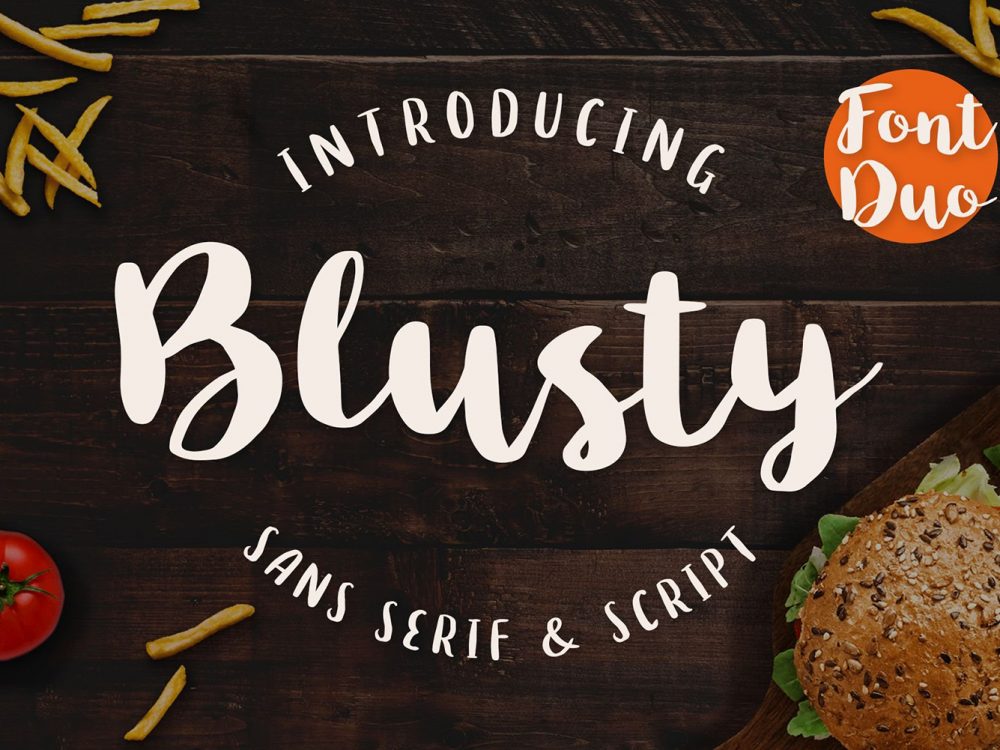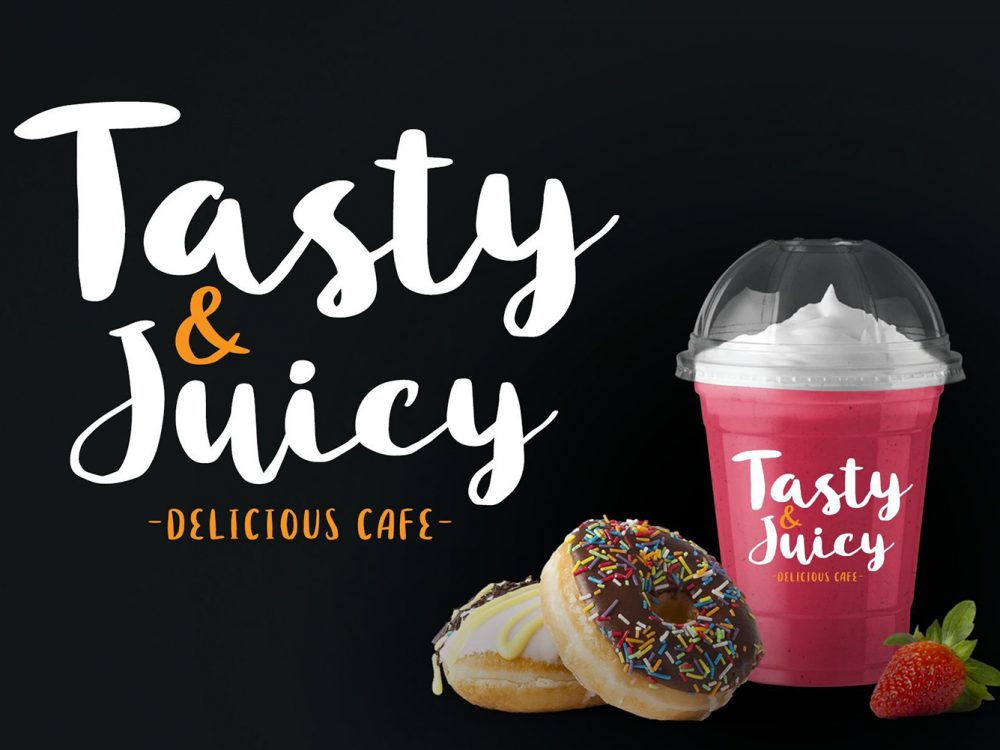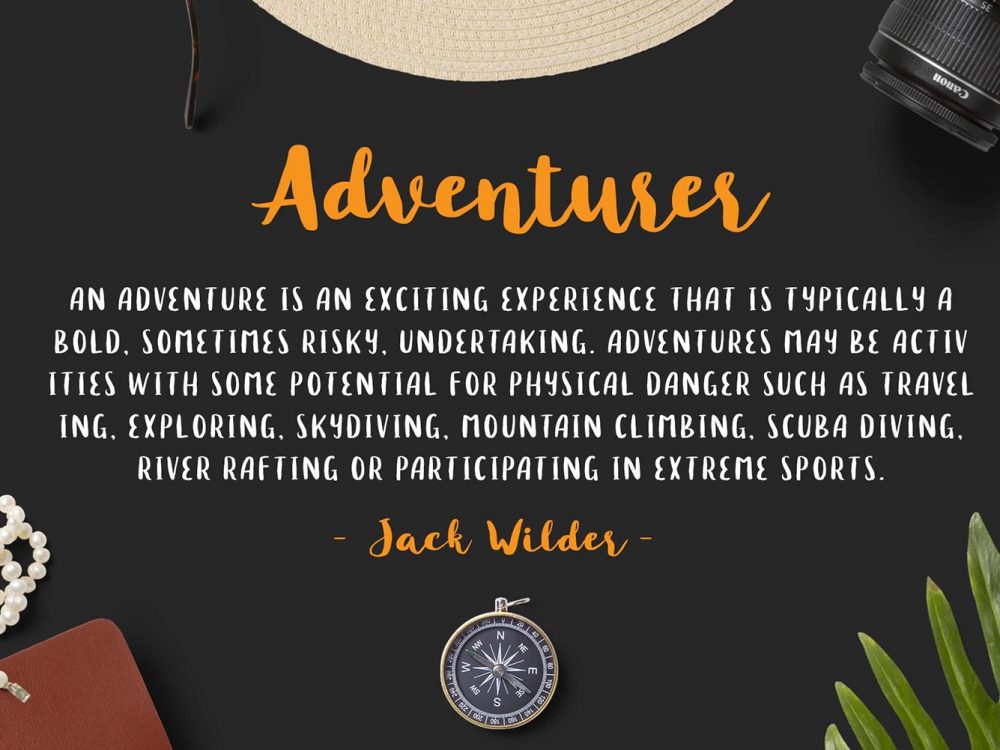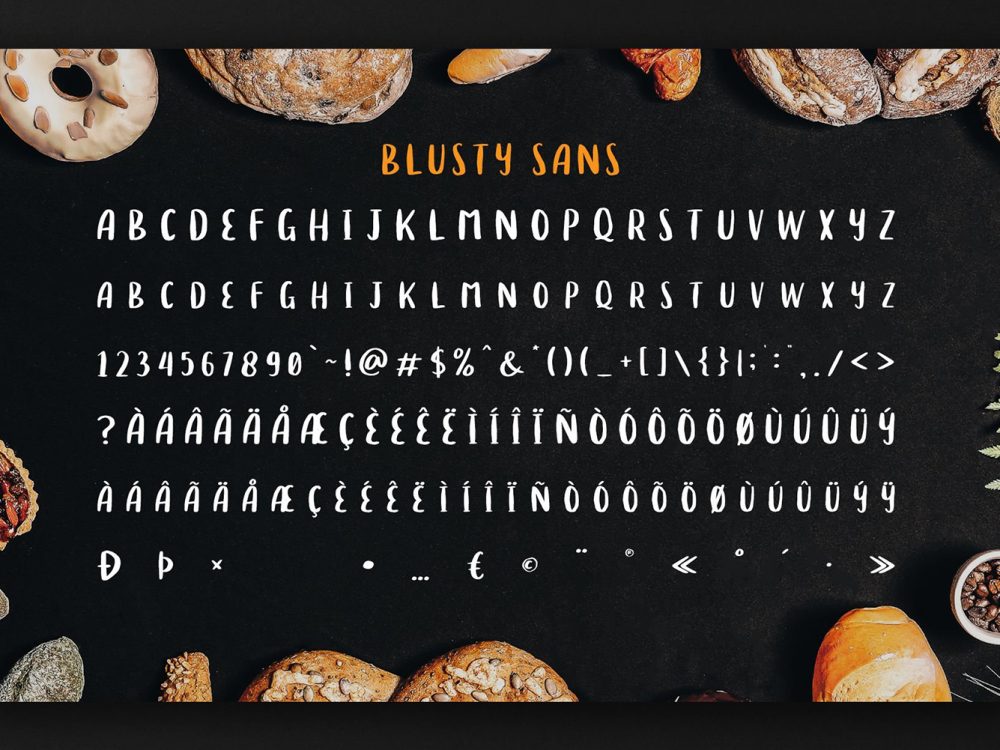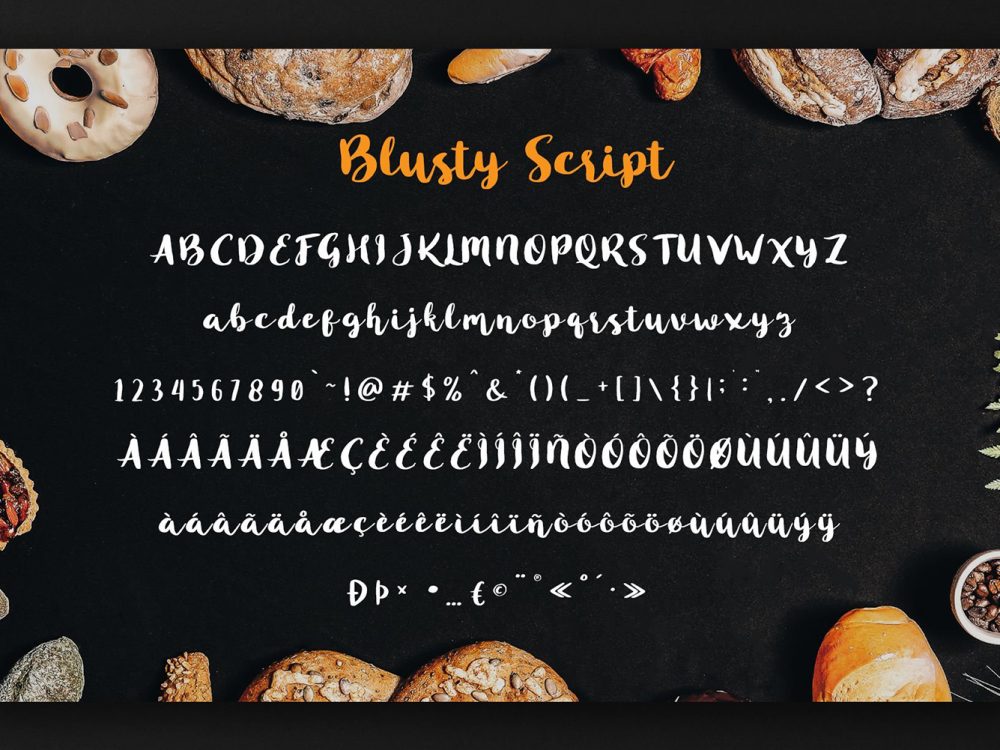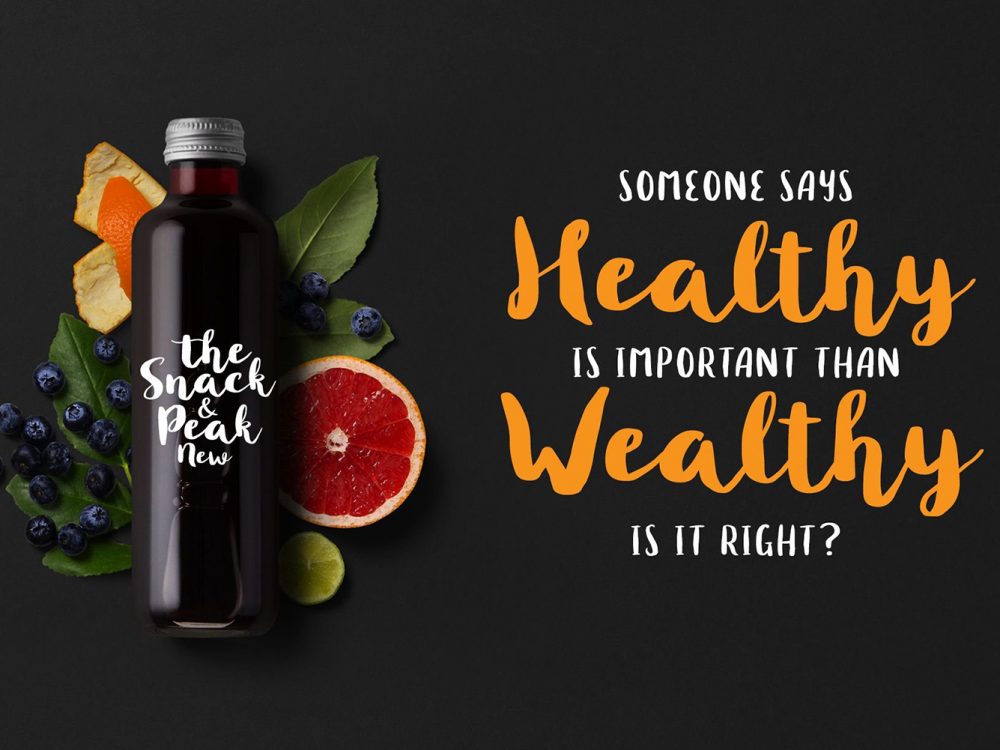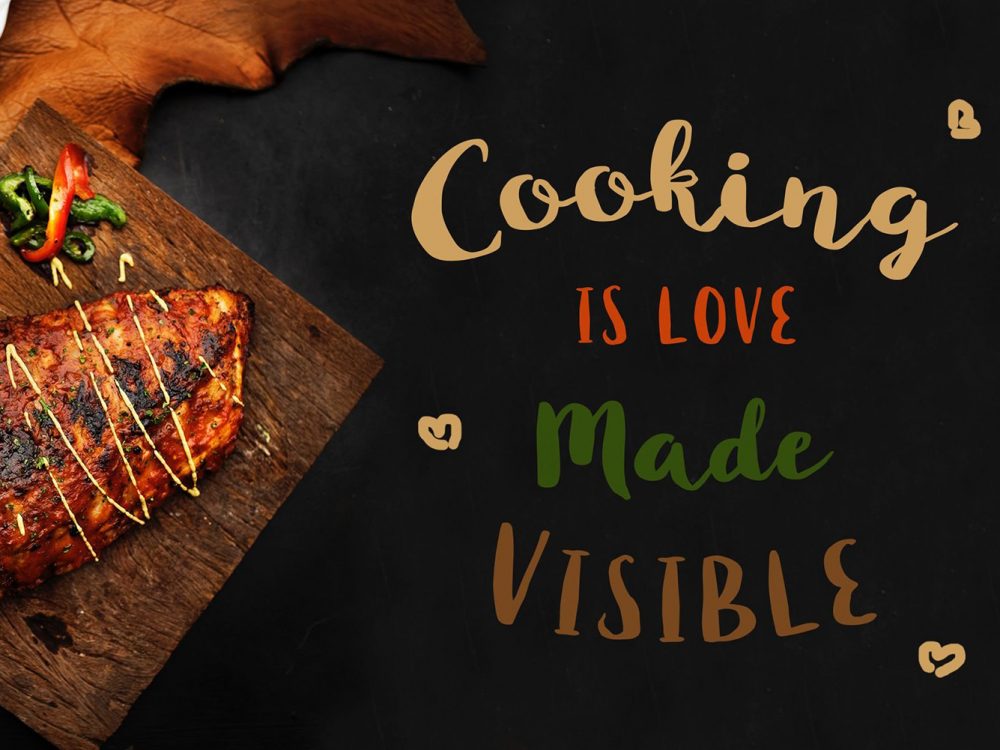
Blusty Script Font
Blusty Script Font is an interesting handwritten font that imitates real handwriting. This font features bold writing and is perfect for a variety of design projects that require a handwritten font. These can be posters, postcards, flyers, greetings, prints, and more. For commercial projects please buy the full version.